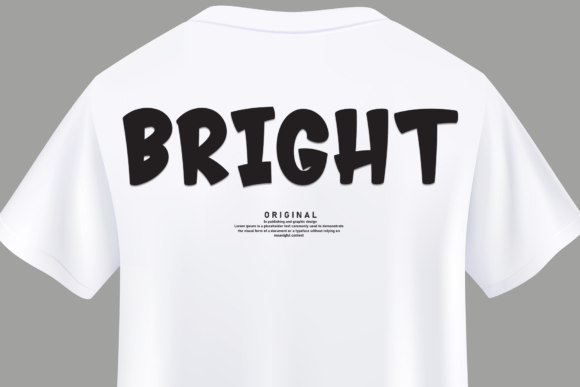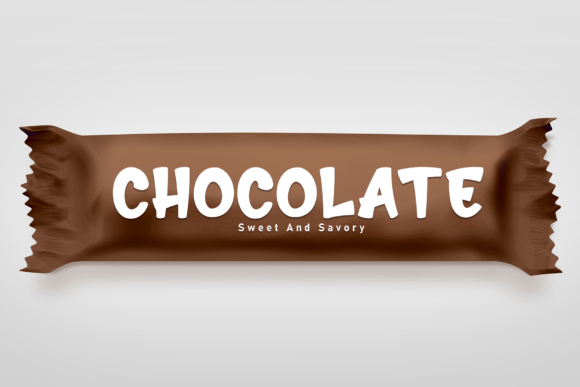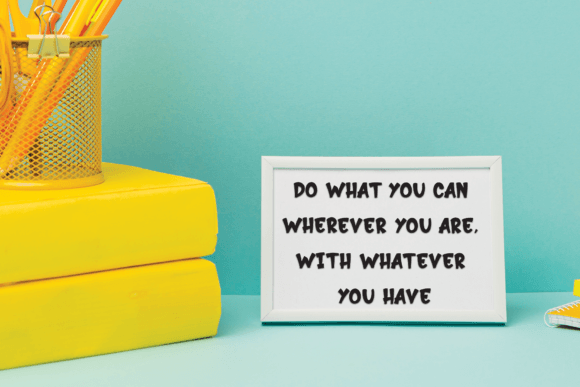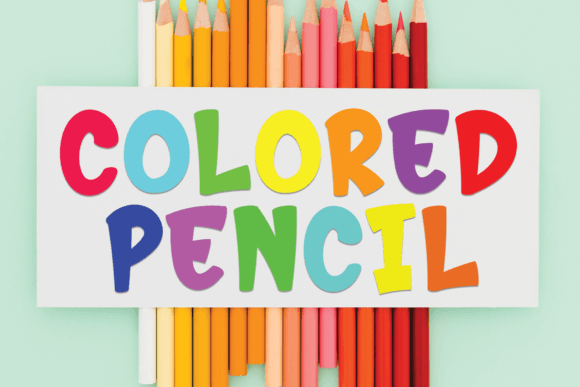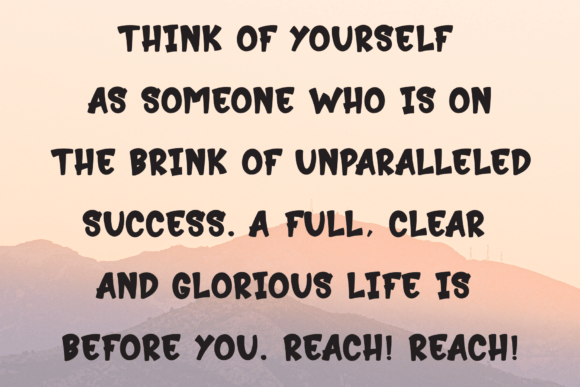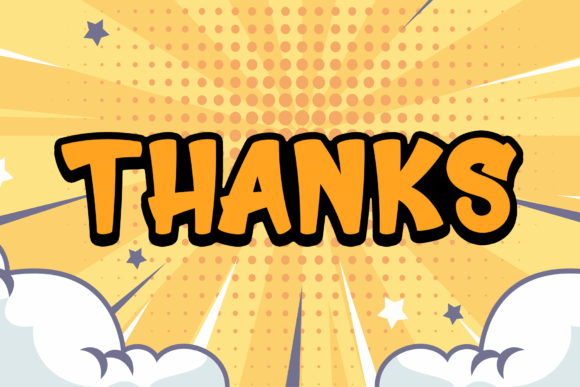
Introducing Comic Toon Font: The Ultimate Choice for Playful Designs
Are you looking for a font that can add a touch of playfulness and authenticity to your designs? Look no further than Comic Toon Font! This cute and colorful display font is perfect for any children’s activity or school project, and is sure to make your designs come alive.
What is Comic Toon Font?
Comic Toon Font is a chunky lettered font that is designed to bring a sense of fun and playfulness to your designs. Its bold and colorful letters are perfect for grabbing the attention of your audience, and its authentic feel makes it ideal for use in children’s activities, school projects, and other playful designs.
Key Features of Comic Toon Font
• Cute and Colorful: Comic Toon Font features bold and colorful letters that are sure to grab the attention of your audience.
• Playful and Authentic: This font embodies playfulness and authenticity, making it perfect for use in children’s activities and school projects.
• Chunky Lettered: The chunky lettered design of Comic Toon Font makes it easy to read and adds a touch of playfulness to your designs.
• Versatile: Comic Toon Font can be used in a variety of designs, from posters and flyers to digital graphics and crafts.
Why Choose Comic Toon Font?
There are many reasons why Comic Toon Font is the perfect choice for your designs. Here are just a few:
• Adds a Touch of Playfulness: Comic Toon Font is designed to bring a sense of fun and playfulness to your designs, making it perfect for use in children’s activities and school projects.
• Easy to Read: The chunky lettered design of Comic Toon Font makes it easy to read, even from a distance.
• Versatile: Comic Toon Font can be used in a variety of designs, from posters and flyers to digital graphics and crafts.
• Authentic Feel: This font has an authentic feel that makes it perfect for use in designs that require a playful and youthful touch.
How to Use Comic Toon Font in Your Designs
Using Comic Toon Font in your designs is easy! Here are a few tips to get you started:
• Pair with Other Fonts: Comic Toon Font pairs well with other fonts, such as sans-serif fonts, to create a playful and fun design.
• Use in Posters and Flyers: Comic Toon Font is perfect for use in posters and flyers for children’s activities and school projects.
• Add to Digital Graphics: This font can be used in digital graphics, such as social media graphics and blog posts, to add a touch of playfulness.
• Use in Crafts: Comic Toon Font can be used in crafts, such as handmade cards and scrapbooking, to add a personal touch.
Tips and Tricks for Working with Comic Toon Font
Here are a few tips and tricks to keep in mind when working with Comic Toon Font:
• Experiment with Colors: Comic Toon Font comes in a variety of colors, so don’t be afraid to experiment and find the perfect color for your design.
• Use in Combination with Images: This font pairs well with images, such as illustrations and photographs, to create a playful and fun design.
• Keep it Simple: Comic Toon Font is a bold and playful font, so keep your design simple and clean to let the font shine.
Comic Toon Font is a cute and colorful display font that is perfect for any children’s activity or school project. Its playful and authentic feel makes it ideal for use in a variety of designs, from posters and flyers to digital graphics and crafts. With its chunky lettered design and versatile nature, Comic Toon Font is sure to make your designs come alive!